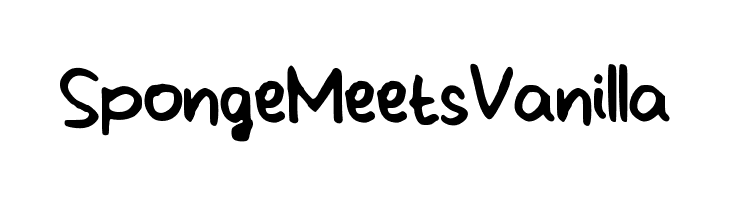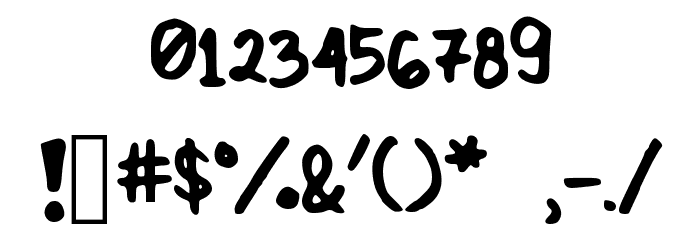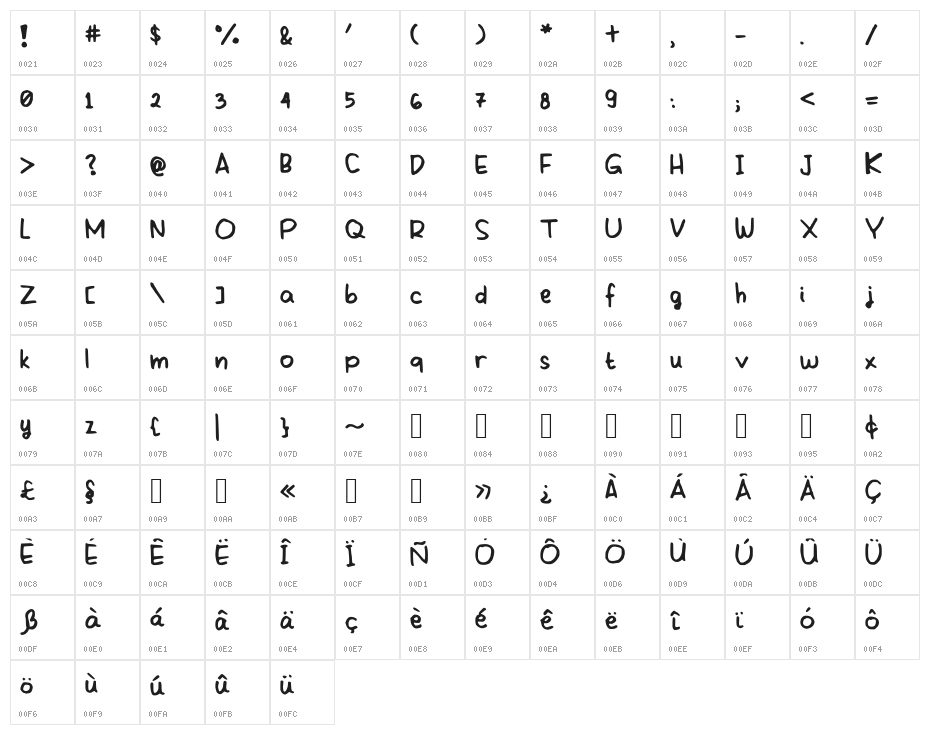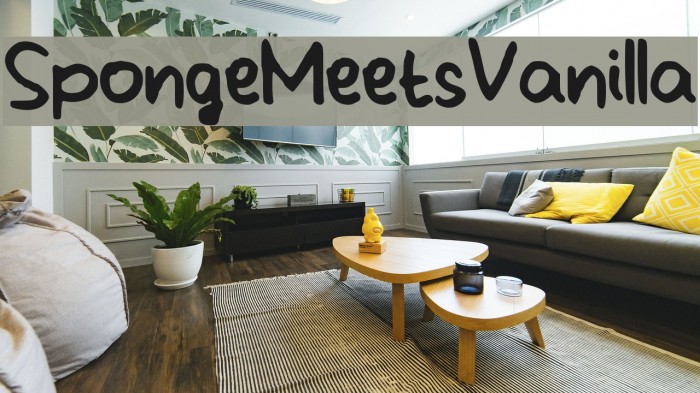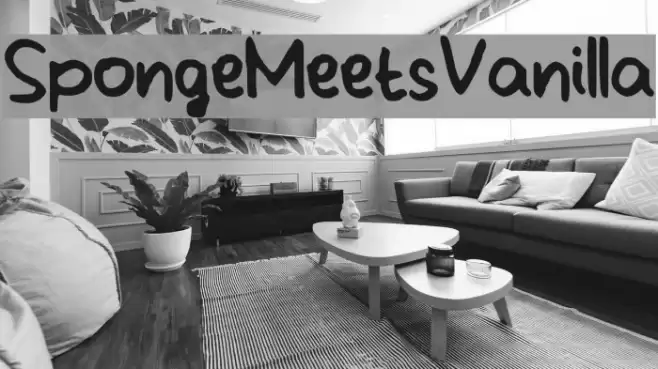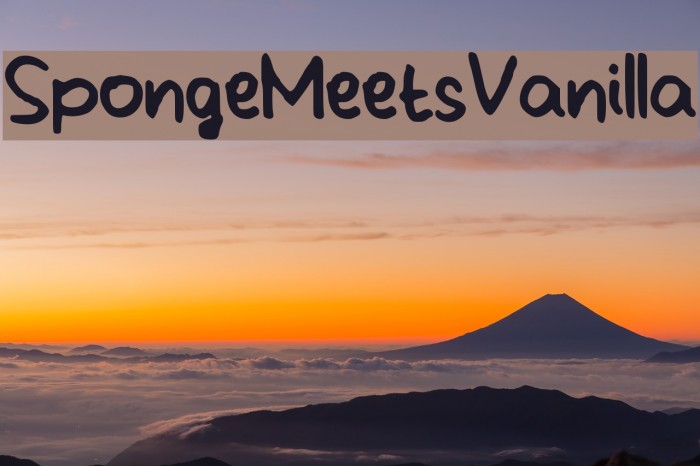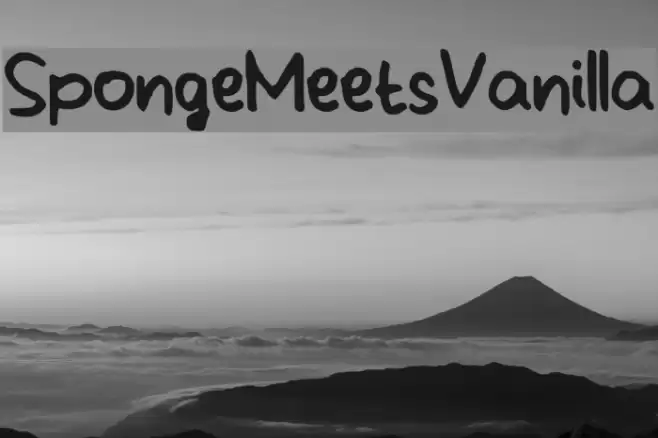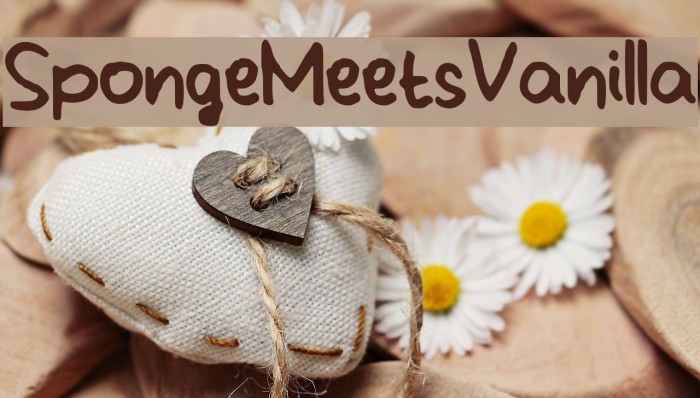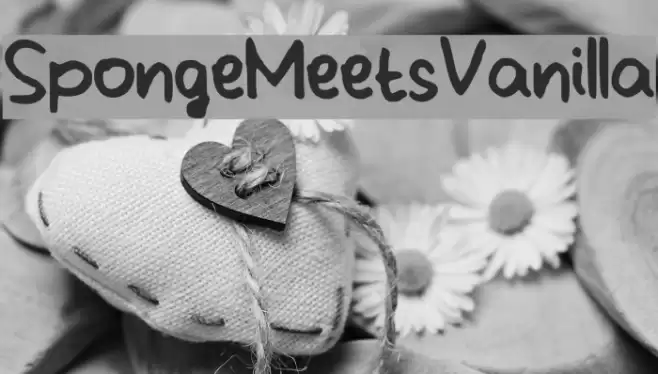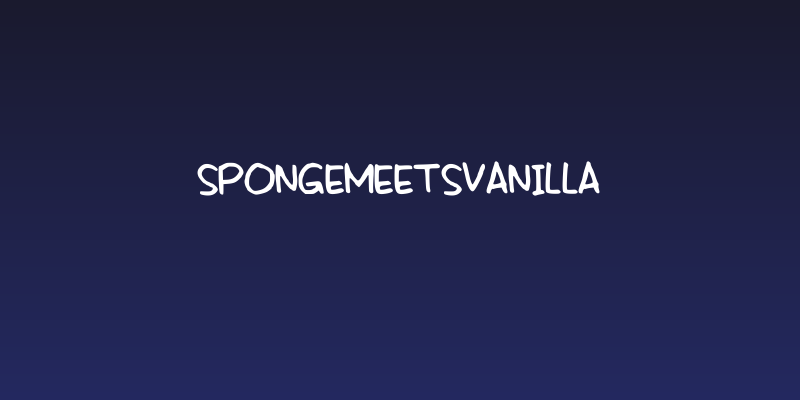
SpongeMeetsVanilla Font
SpongeMeetsVanilla Description
This playful and whimsical font features a hand-drawn style with rounded edges and a casual, friendly appearance. The characters are bold and slightly irregular, giving them a lively and dynamic feel. The uppercase and lowercase letters maintain a consistent style, with a slight tilt that adds to the informal charm. Numbers and special characters are equally expressive, making this font versatile for various creative projects. Its unique personality makes it ideal for designs that require a touch of fun and creativity.
| Proposed Projects | Perfect for children's books, playful branding, greeting cards, and creative posters. |